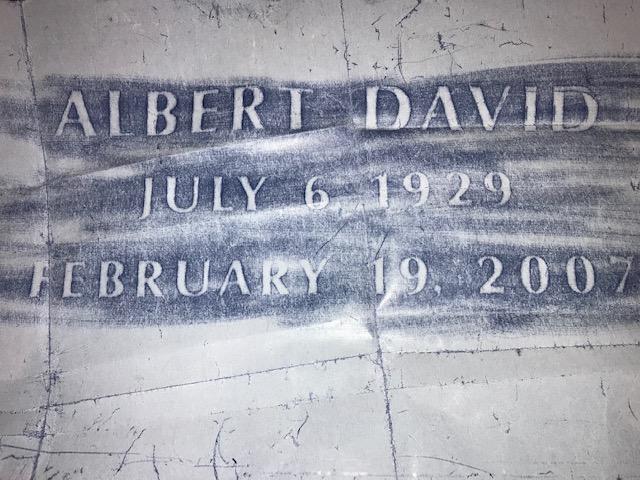
Does anyone know the name of this font?  Also, do you know where this font can be purchased?
Hello Randy, this is Optima Bold, though the punctuation appears to be different, so you’ll need to create your own comma. This is probably a version of the font created for a memorial design software where some slight changes were made. You can purchase it here: myfonts.com